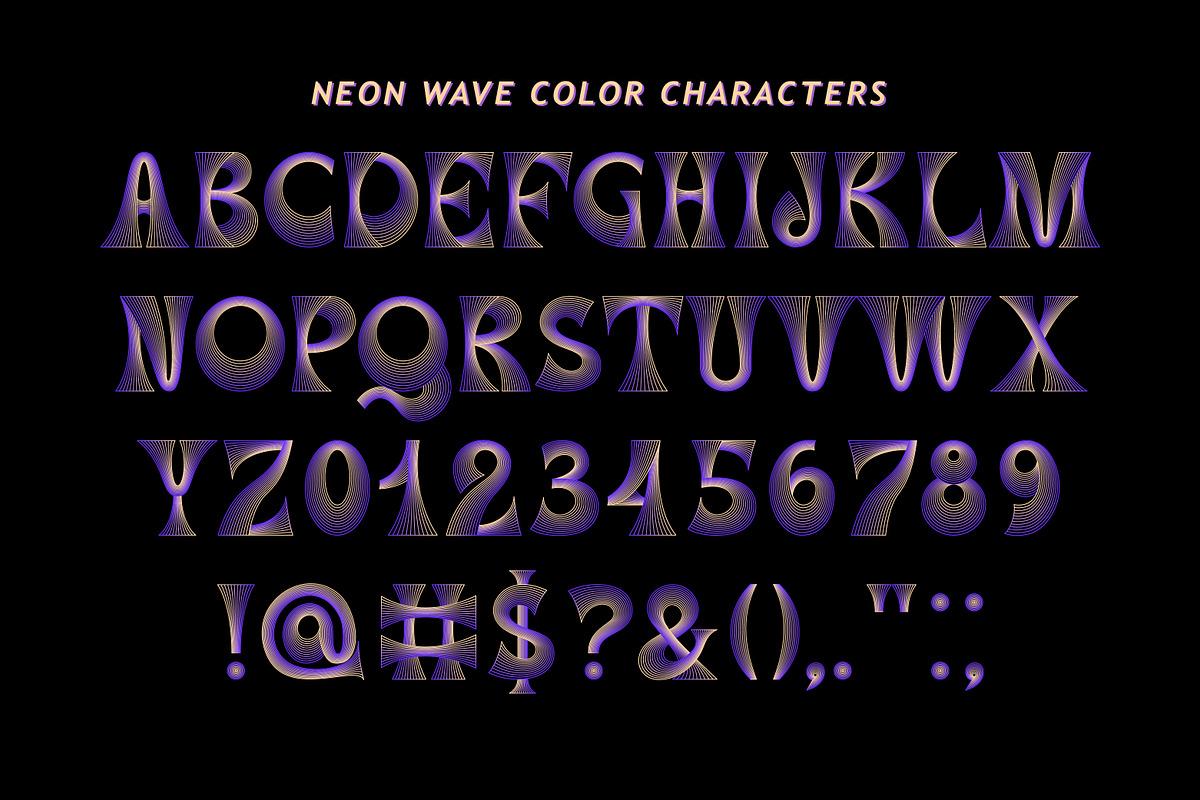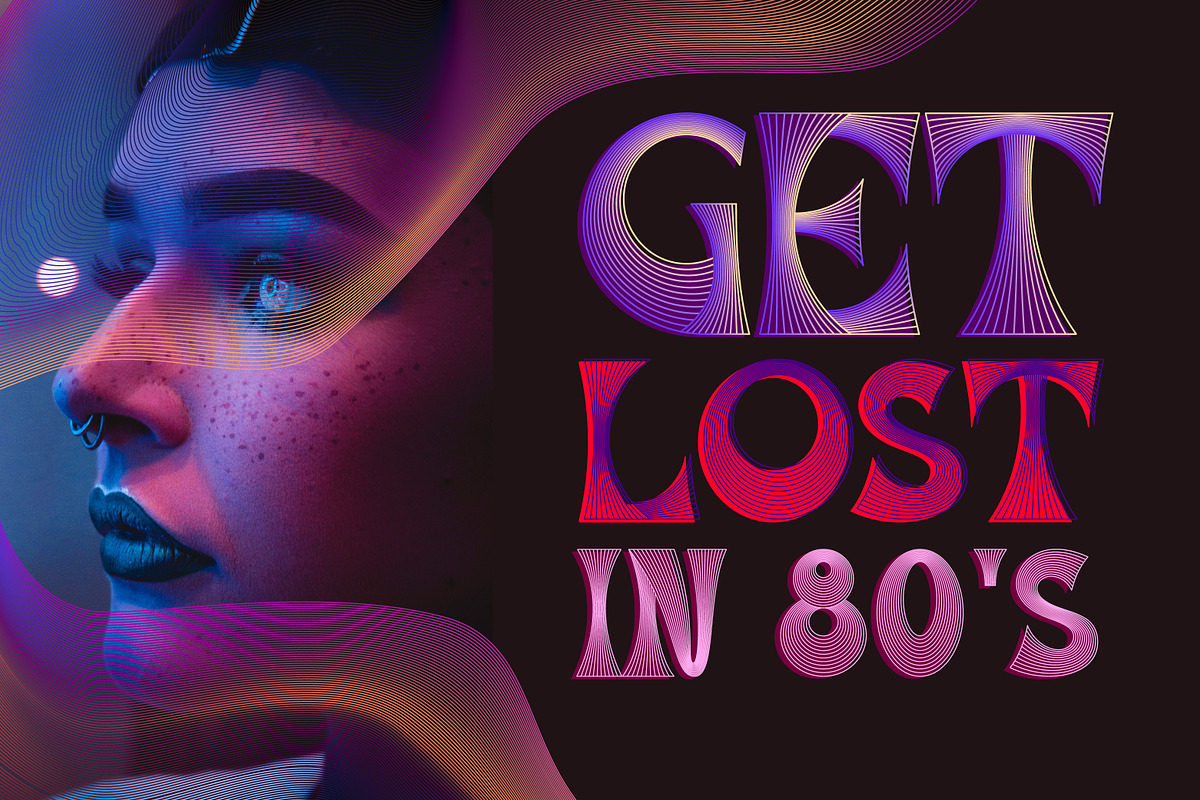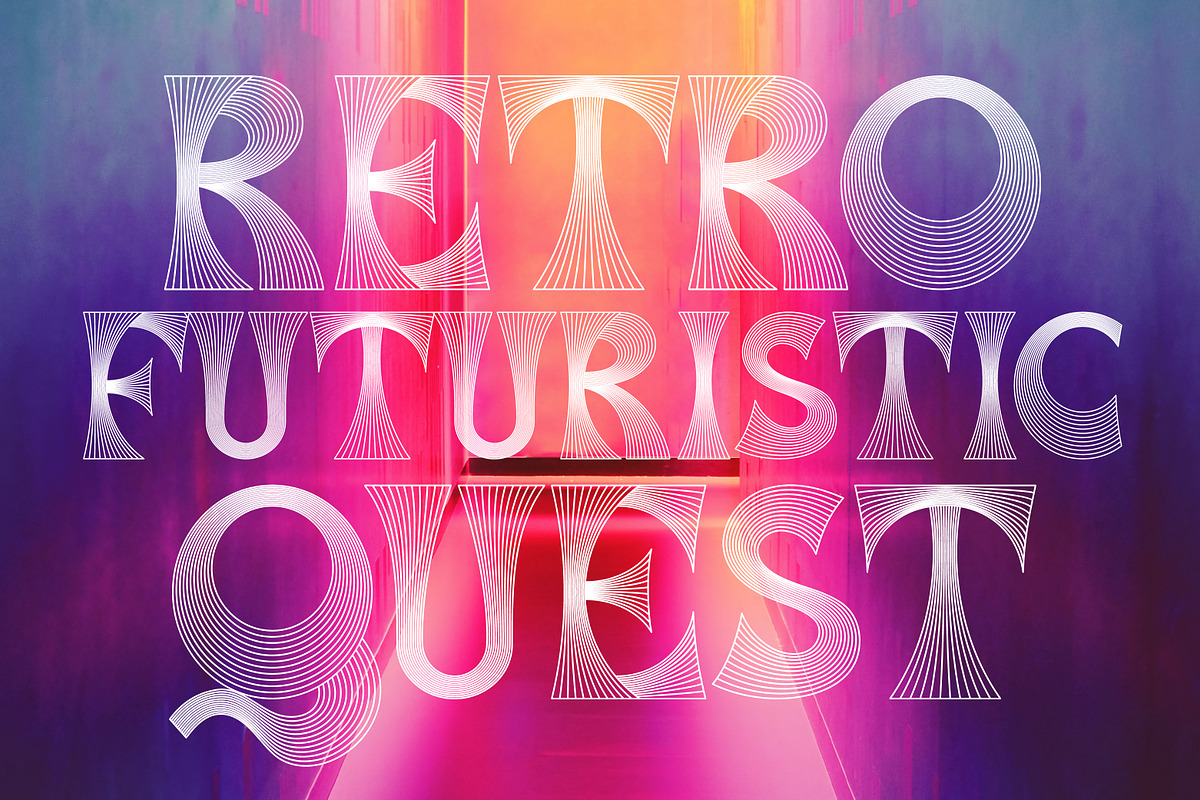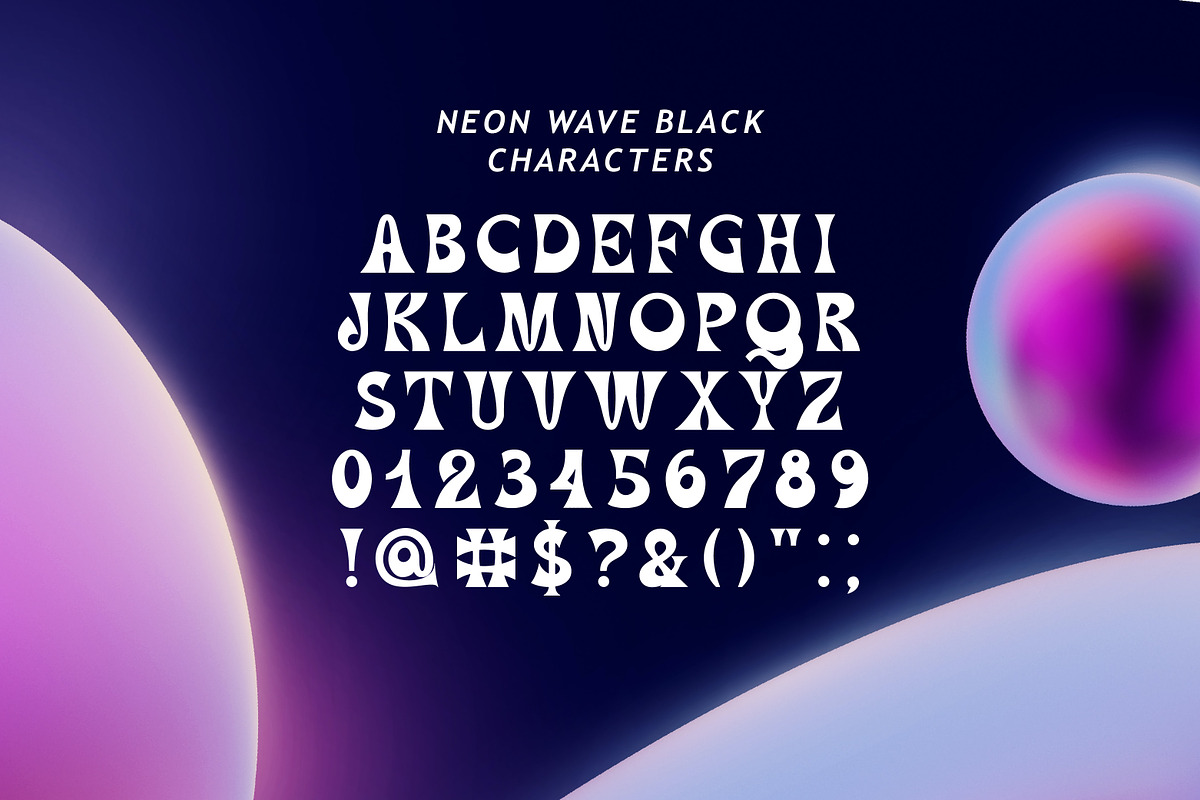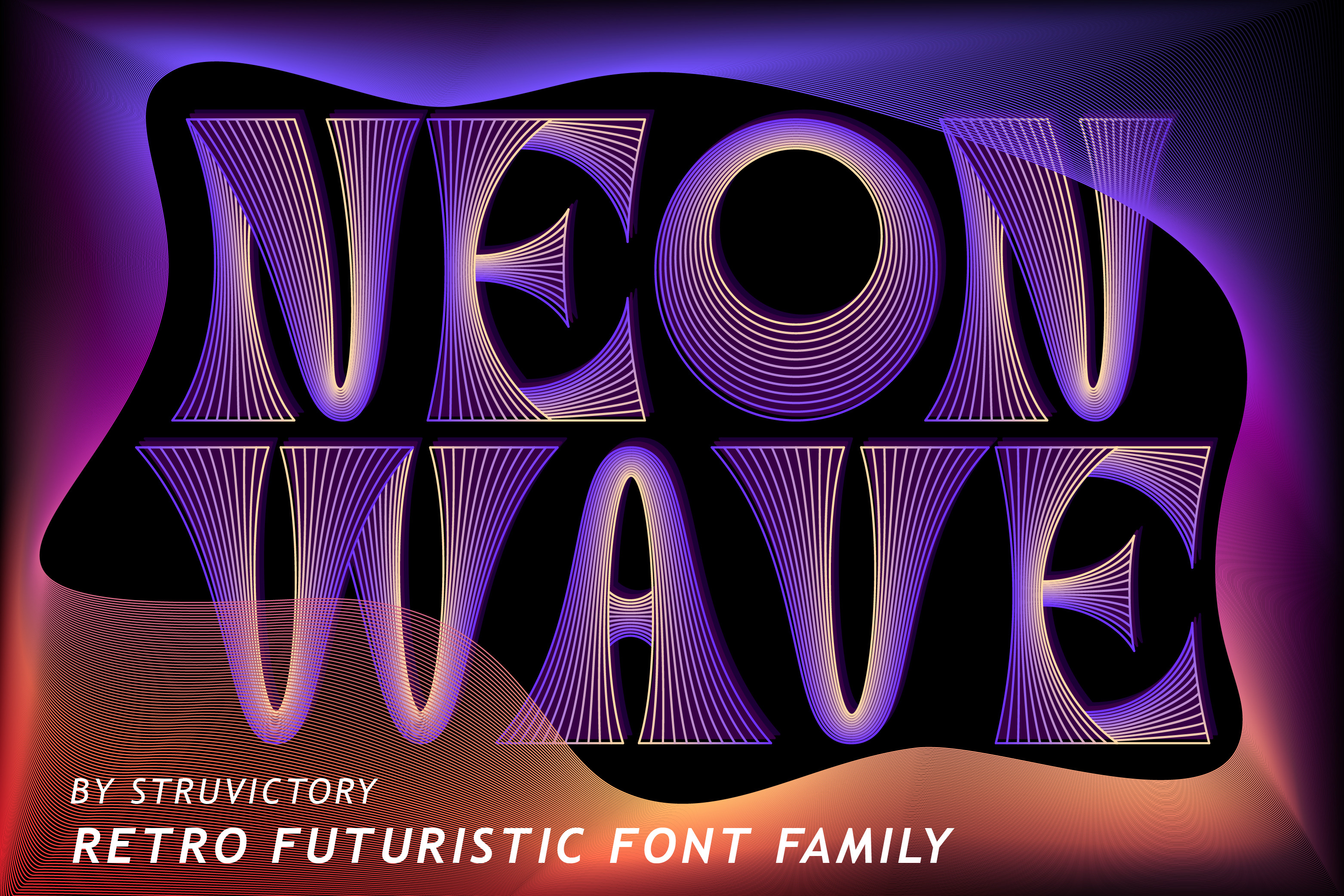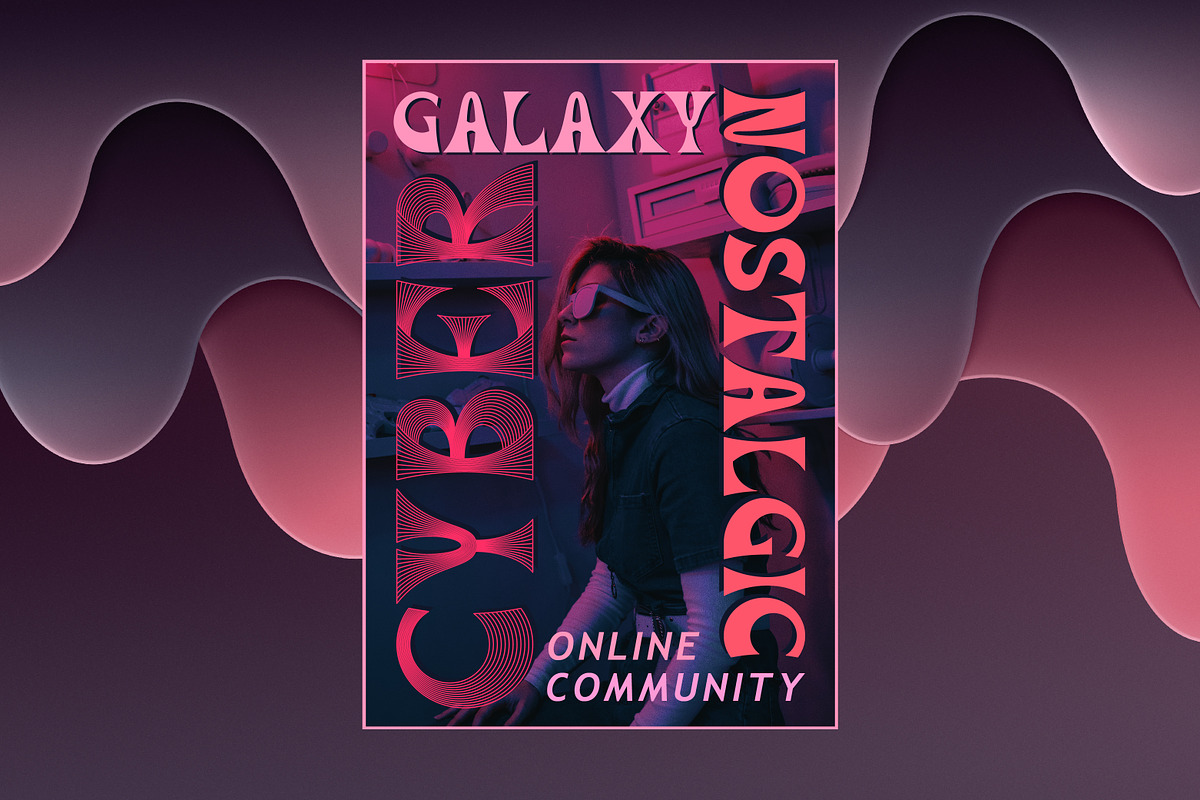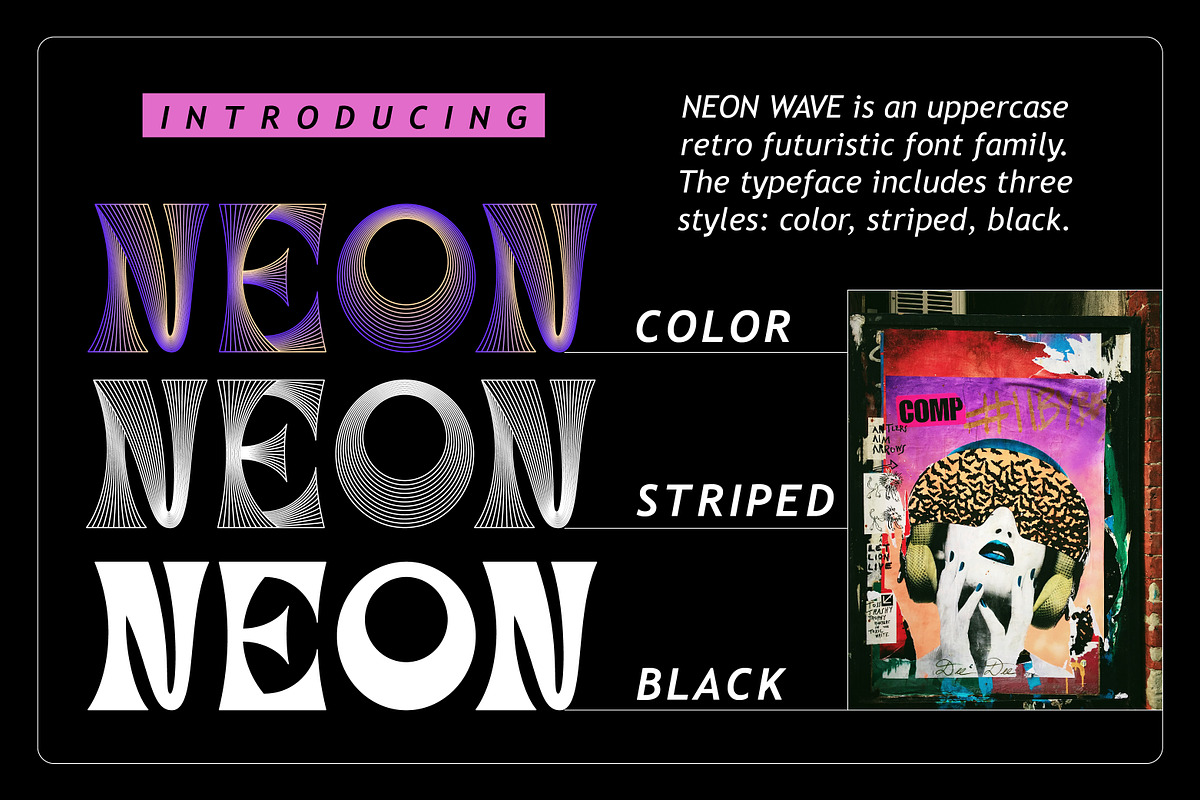
Neon Wave Retro Futuristic Typeface
Introducing Neon Wave - your ultimate solution for capturing the essence of retro-futuristic design with vibrant, eye-catching color palettes! This stunning uppercase typeface brings the neon lights and cyberpunk vibes of the 80s directly to your design projects, making them stand out and leave a lasting impression. Seamlessly blend the past with the future, and let Neon Wave transport you to a world of unparalleled creativity and innovation. Neon Wave Typeface includes three styles: color, striped and black.
- NeonWaveStriped
- NeonWaveBlack